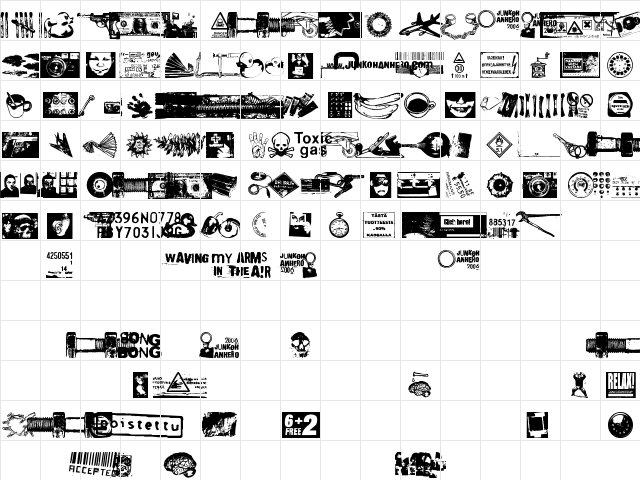
Waving My Arms in the Air Regular
Design Context for Waving My Arms in the Air Typeface
Waving My Arms in the Air is a composed and adaptable typeface that performs quietly and consistently across a wide range of design contexts.